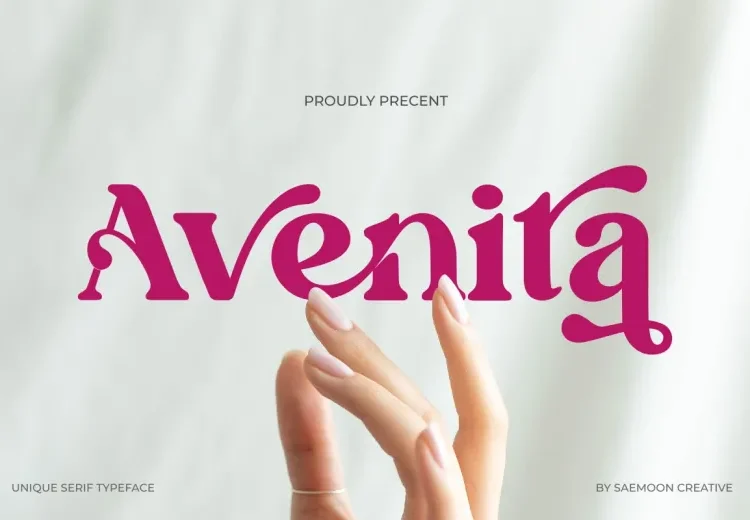
Avenita Font
Avenita is an exquisite serif typeface distinguished by its elegant ligatures and unique letterforms. Each character in Avenita showcases distinctive features that contribute a touch of class and individuality to any design project.
Whether used for logo design, website development, clothing branding, packaging, or social media, Avenita brings a refined and sophisticated aesthetic to a variety of applications. Its elegant appearance makes it a versatile choice for enhancing any creative endeavor.